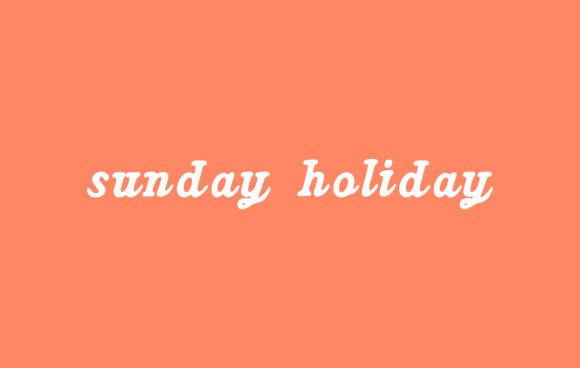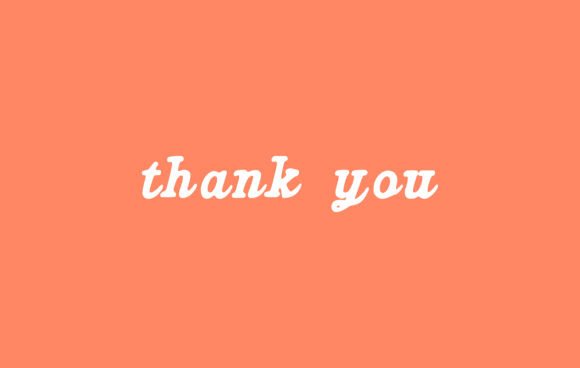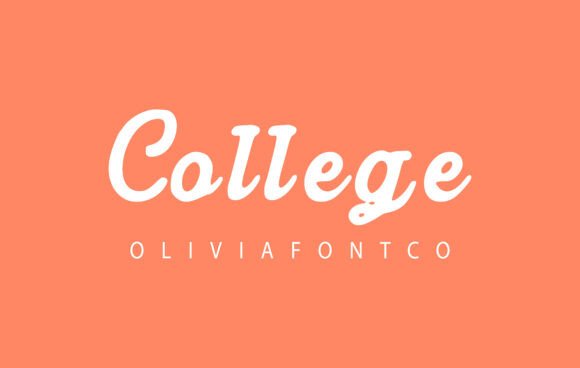
Introducing College Font: The Ultimate Handwritten Font for Creative Projects
Are you tired of using the same old fonts for your creative projects? Look no further! College Font is an authentic handwritten font that adds a romantic touch to any design. Expertly crafted to be a true favorite among designers and crafters, this font has the potential to take your creative ideas to the highest level.
What Makes College Font Special?
College Font is a unique and versatile font that boasts a range of characteristics that make it perfect for various design projects. Here are some of its standout features:
- Authentic Handwritten Style: College Font is designed to mimic the look and feel of handwritten text, giving your designs a personal and human touch.
- Romantic Touch: This font exudes a sense of romance and elegance, making it perfect for designs that require a touch of sophistication.
- Legibility: Despite its handwritten nature, College Font is remarkably legible, making it suitable for use as both title and body text.
- Versatility: This font can be used for a wide range of design projects, from magazine headlines and social media graphics to branding, wedding invitations, and cards.
Uses for College Font
College Font’s versatility makes it an excellent choice for various design projects. Here are some ideas to get you started:
- Magazine Headlines: Add a touch of elegance to your magazine headlines with College Font. Its romantic style is sure to grab readers’ attention.
- Social Media Graphics: Elevate your social media presence with custom graphics featuring College Font. Its legibility and style make it perfect for creating engaging posts.
- Branding: Establish your brand’s identity with College Font. Its unique and authentic style will help your brand stand out from the competition.
- Wedding Invitations: Make your wedding invitations truly special with College Font. Its romantic touch will set the tone for your big day.
- Cards and Stationery: Add a personal touch to your cards and stationery with College Font. Its elegance and sophistication make it perfect for special occasions.
Tips for Using College Font
To get the most out of College Font, here are some tips to keep in mind:
- Pair it with Other Fonts: Experiment with pairing College Font with other fonts to create a unique and visually appealing design.
- Use it for Headlines and Titles: Take advantage of College Font’s romantic style by using it for headlines and titles. Its legibility makes it suitable for body text as well.
- Adjust the Size and Color: Don’t be afraid to experiment with different sizes and colors to make College Font truly shine in your design.
College Font is an exceptional handwritten font that can elevate your creative projects to new heights. Its authentic style, romantic touch, and legibility make it perfect for a wide range of design applications. Whether you’re a designer, crafter, or DIY enthusiast, College Font is sure to become a favorite in your toolkit. So why wait? Download College Font today and start creating stunning designs that capture the essence of romance and elegance!